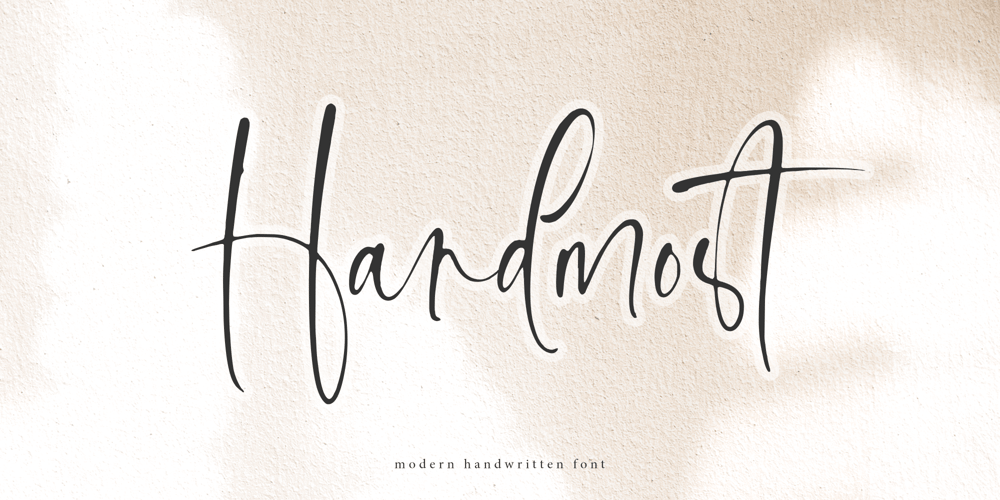
Handmost Font Family was designed by Muhammad Fathurrohman and published by Aestherica Studio. Handmost contains 1 styles and family package options. Introducing the new Modern Handwritten Font by Aestherica Studio.Proudly Present, Handmost is perfect for product packaging, branding project, magazine, social media, weddings, or just used to express words above the background.Handmost also multilingual support.Enjoy the font.